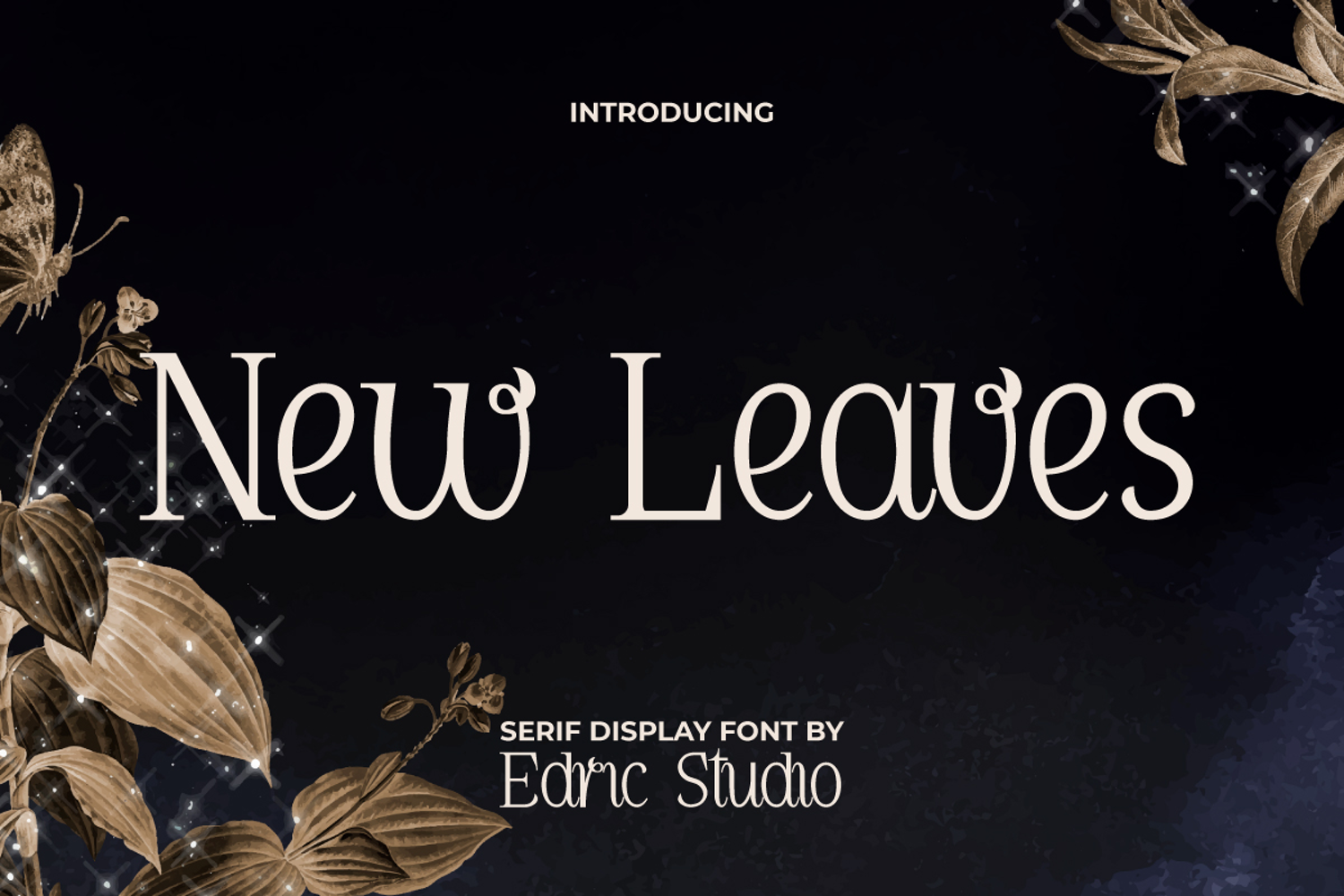
New Leaves Font
New Leaves Modern Font is a unique and lovely serif typeface with the ornament of “leaves” on the letters. The font designed to enhance your projects with classic elegance and modern versatility. This serif display font exhibits unique characteristics of luxury. This will be perfect for app view, blogs, brand logo, brochure, cover, greeting card, headlines, logos, magazines, menu, packaging design, watermarks, website, wedding invitation, and others.
New Leaves Modern Display Font covers the basic characters of Uppercase and Lowercase Letters, Numbers, Punctuation and Symbols. . Whether you’re creating wedding invitations, logos, brochures, magazines, packaging designs, or branding for fashion, beauty, and lifestyle businesses, this font will ensure your message stands out with timeless grace.
New Leaves Font  a playful typeface with unique decoration in each character. Combine different characters for a bespoke, handcrafted feel. It’s tested to work well in the Adobe Apps (Illustrator, Adobe InDesign, Adobe Photoshop) even work on Microsoft Word. Thanks to PUA encoding, every glyph and alternate character is accessible for custom creative control.